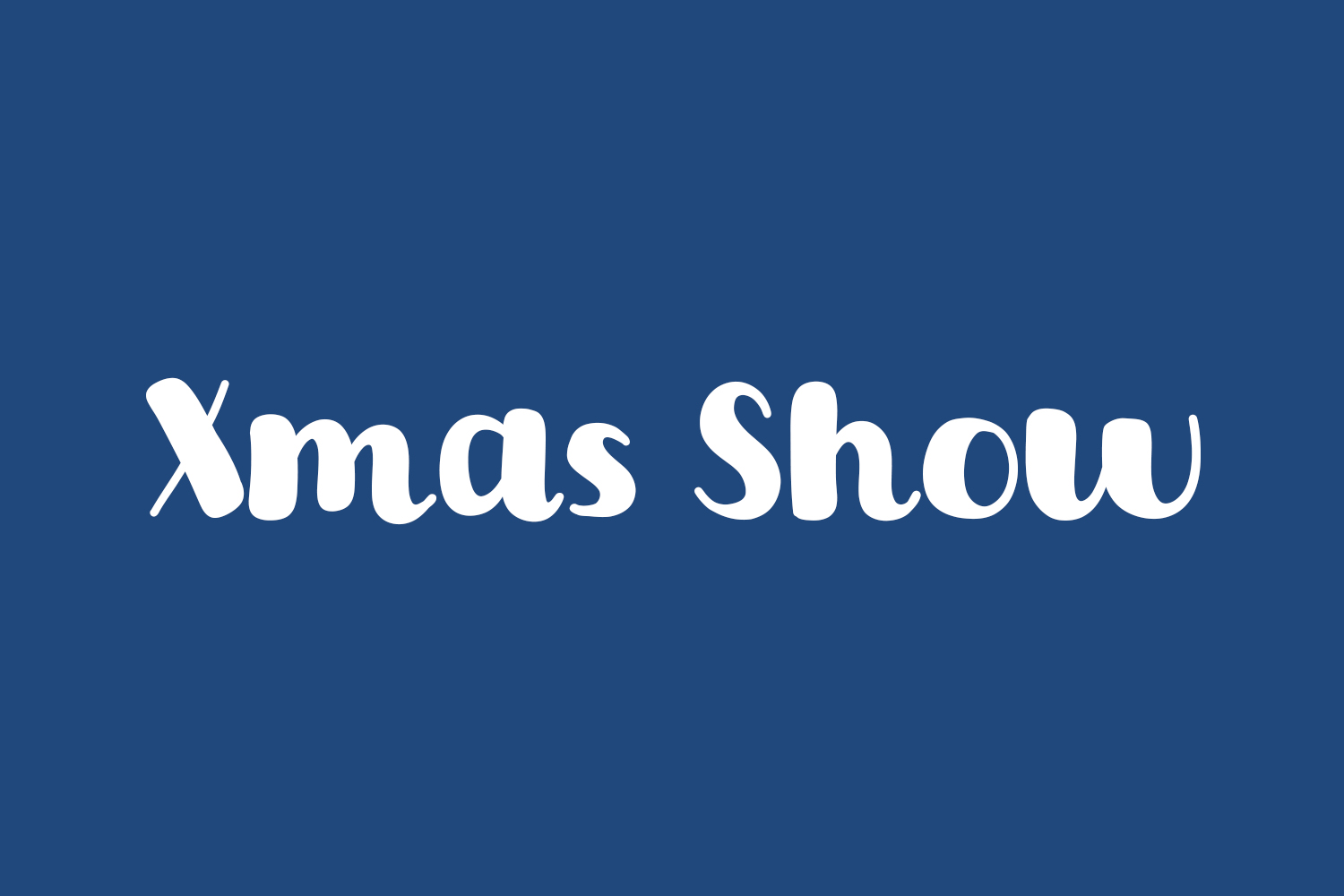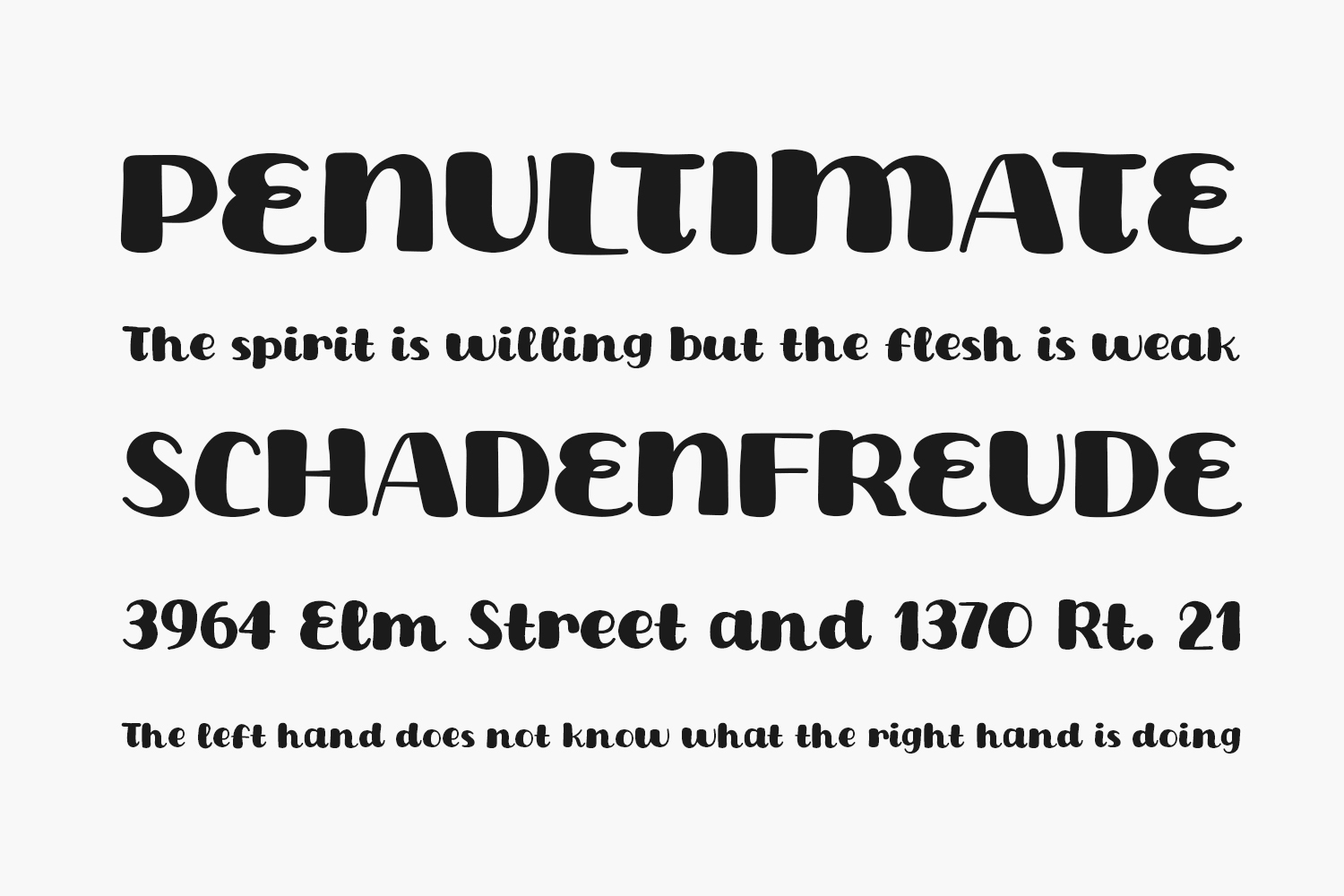
Xmas Show Free Font is a contemporary display font, adds a touch of sophistication to posters, logos, magazines, book covers, banners, and more! Acquire this remarkable font to infuse your designs with a sense of charm. Its versatility seamlessly complements a vast array of projects, making it a must-have for your creative endeavors-watch as it effortlessly elevates and distinguishes your ideas. Xmas Show Free Font was designed by Khurasan and is free for personal or commercial use.